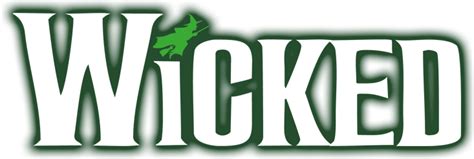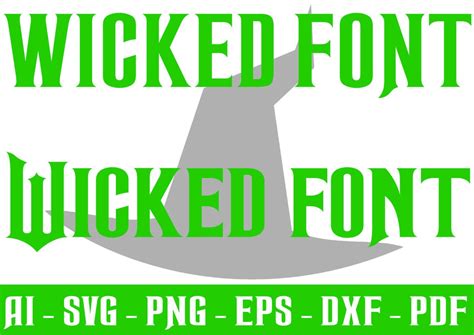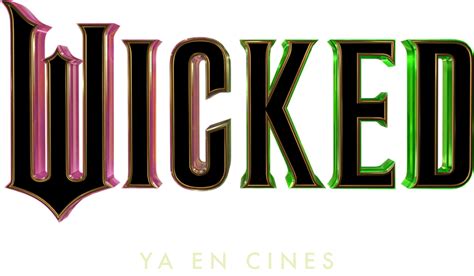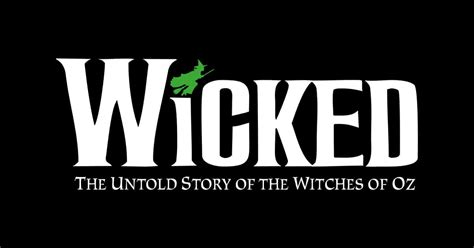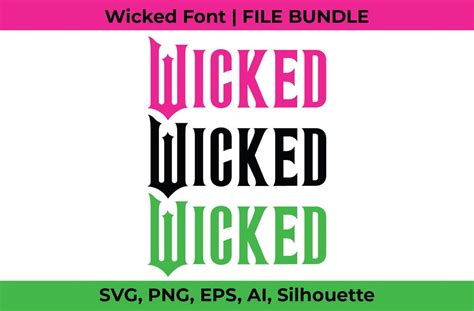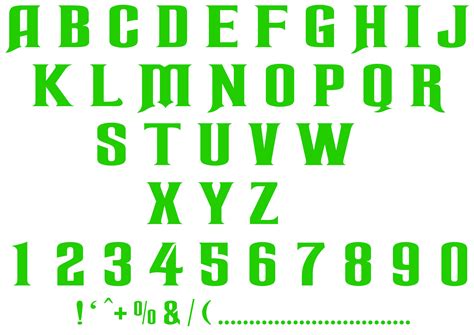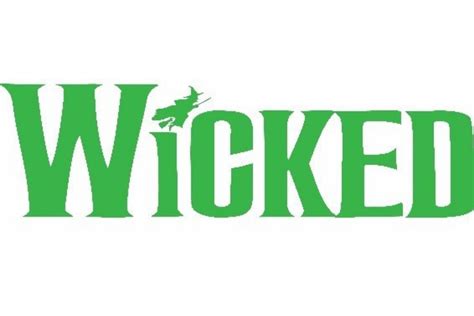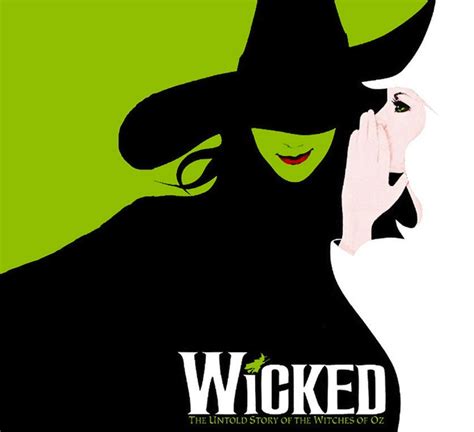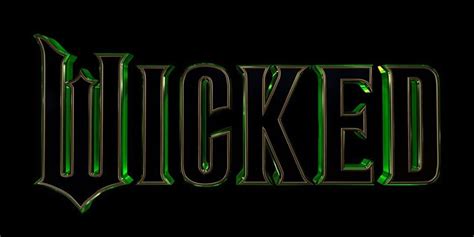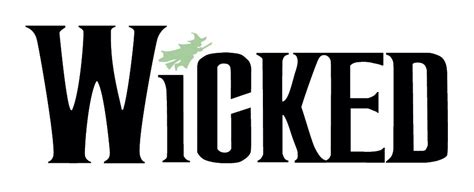
WICKED MUSICAL FONT
The wicked musical font is a unique and captivating font style that has become an integral part of the musical world, particularly in the realm of theatrical productions. This font is characterized by its bold and dramatic appearance, which adds a touch of wickedness and intrigue to any written material. With its twisted letters and intricate designs, it has become a popular choice for playbills, posters, and promotional materials in the theater industry.
One of the key benefits of using the wicked musical font is its ability to capture attention and create a memorable impact. Its distinctive style ensures that any text displayed in this font will stand out, making it ideal for grabbing the audience's attention and leaving a lasting impression. Whether it's a catchy phrase, a song title, or a quote from a famous musical, this font can enhance the overall aesthetic and thematic elements of a performance.